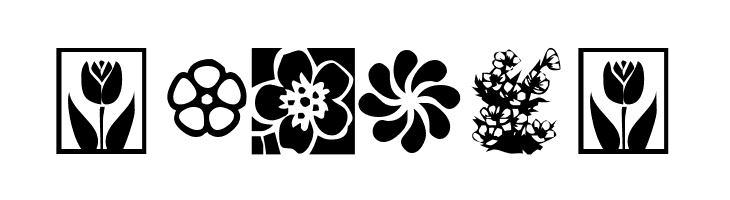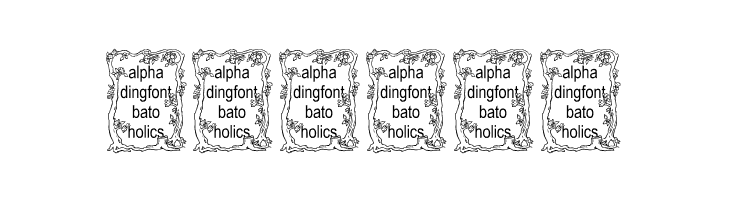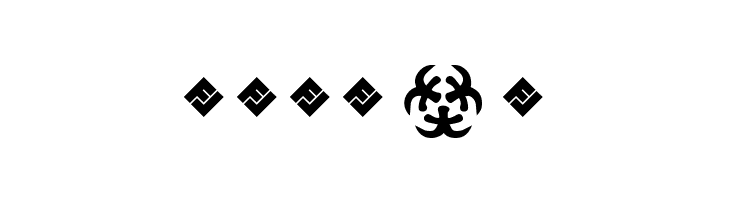
Decorative autumn-themed dingbat font with foliage and acorn motifs.
A collection of decorative floral and cat-themed icons.
A collection of intricate floral and botanical designs with detailed artistry.
A display font featuring diverse snowflake icons.
A decorative font with intricate floral and ornamental designs.
A decorative font with ornate floral borders around each character.
Cartoonish car dingbat font with bold, simple shapes.
Ornate, emblematic symbols reminiscent of Japanese kamon.
A modern, condensed sans-serif font with a clean and orderly appearance.
Ornamental symbol font with ancient and geometric motifs.